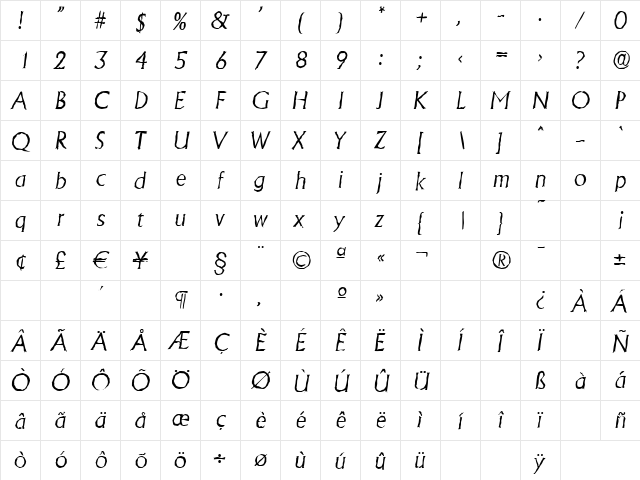
JacobBeckerAntique-Light Italic Font Preview
Design Context for JacobBeckerAntique-Light Typeface
JacobBeckerAntique-Light wears its vintage influences proudly, with letterforms that recall mid-century signage, classic packaging, and nostalgia-driven design. The dynamic lean of this cut emphasises speed and emphasis in any layout. The delicate stroke weight brings airiness and refinement to layouts.
Font Pairing: Combine JacobBeckerAntique-Light with a simple slab or neutral sans — period-accurate companions reinforce the vintage feel without competing for attention.
Pro Tip: Lean into JacobBeckerAntique-Light's period character by pairing it with aged paper textures, muted colour palettes, and vintage illustration styles.